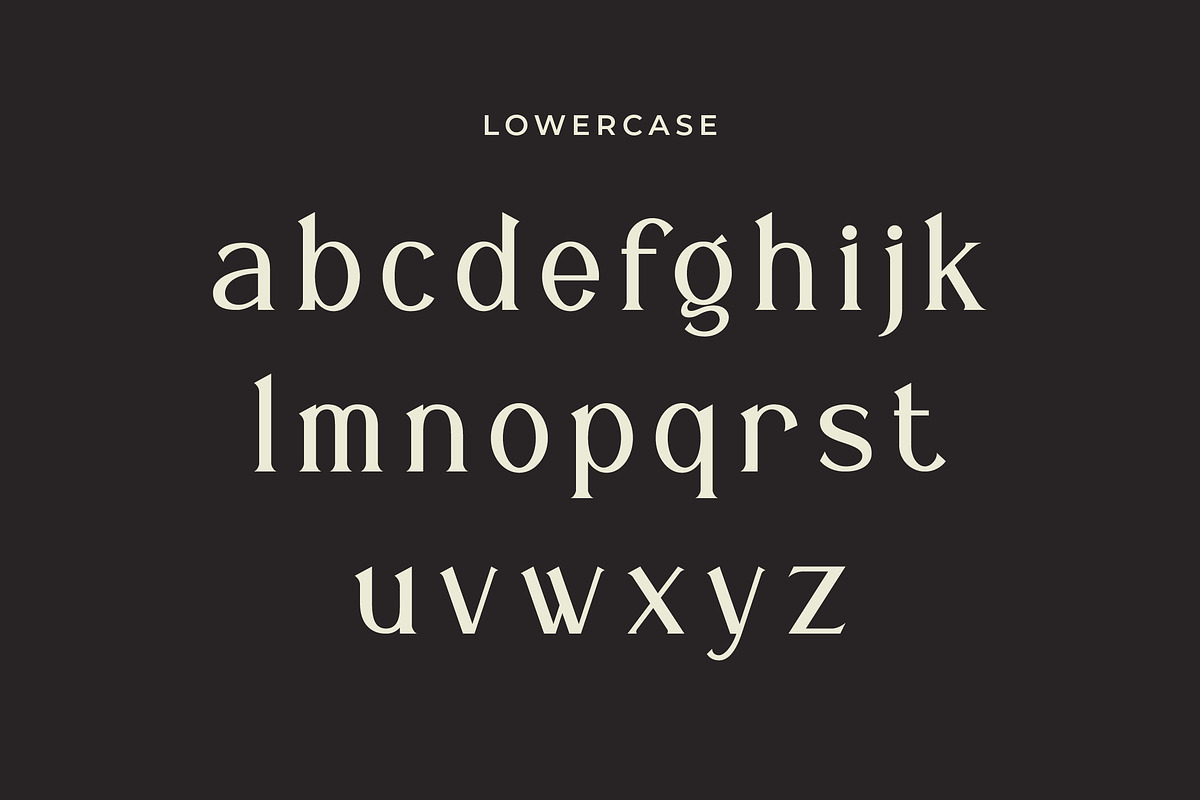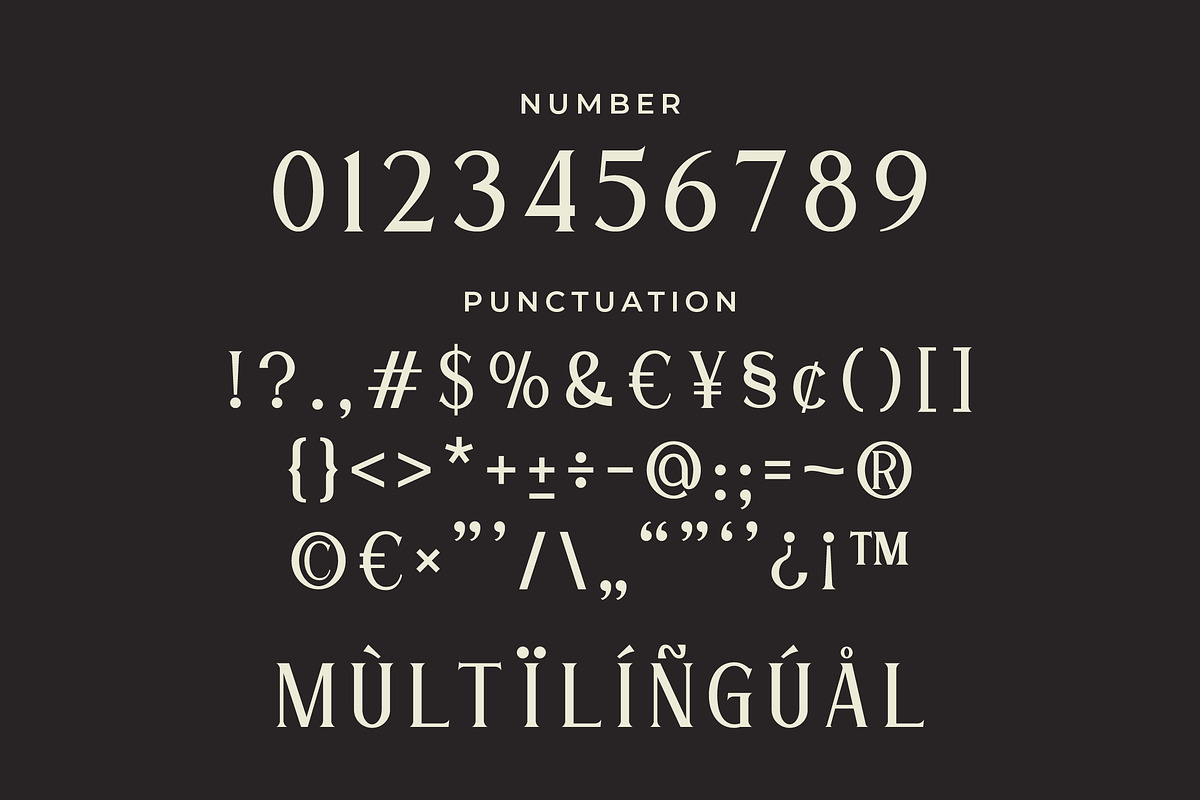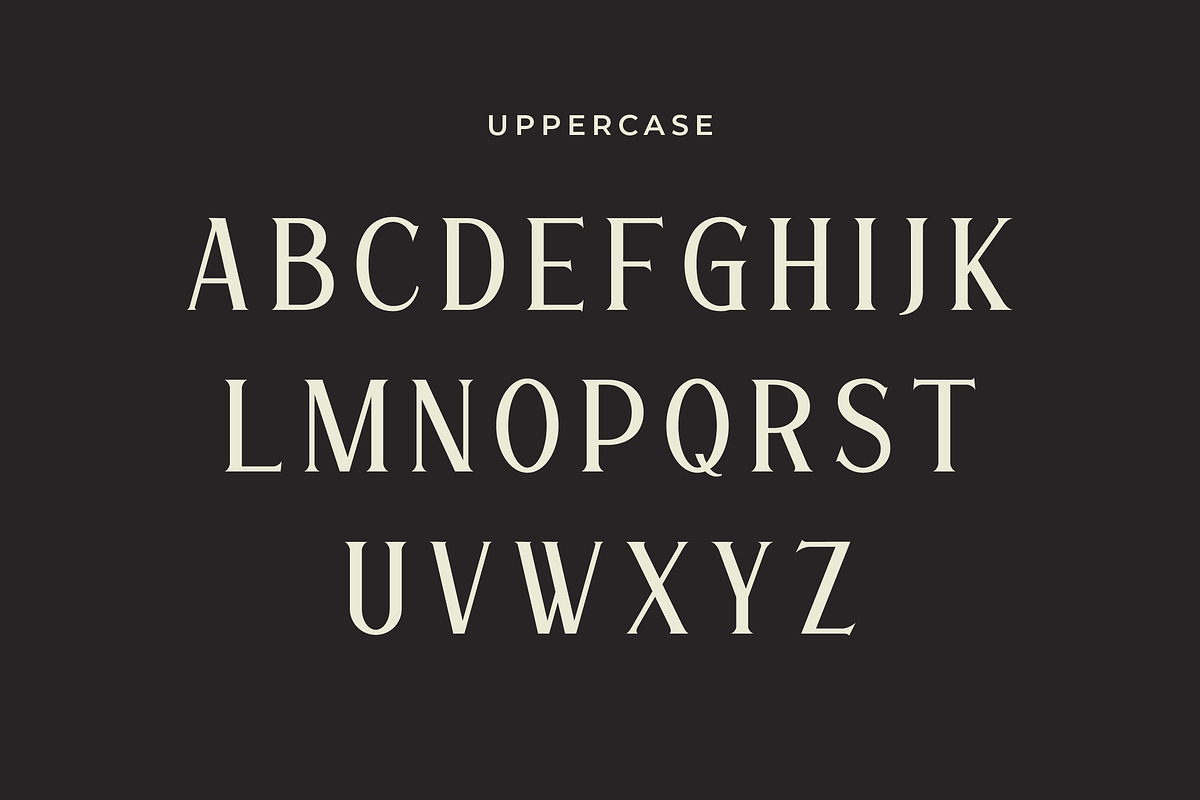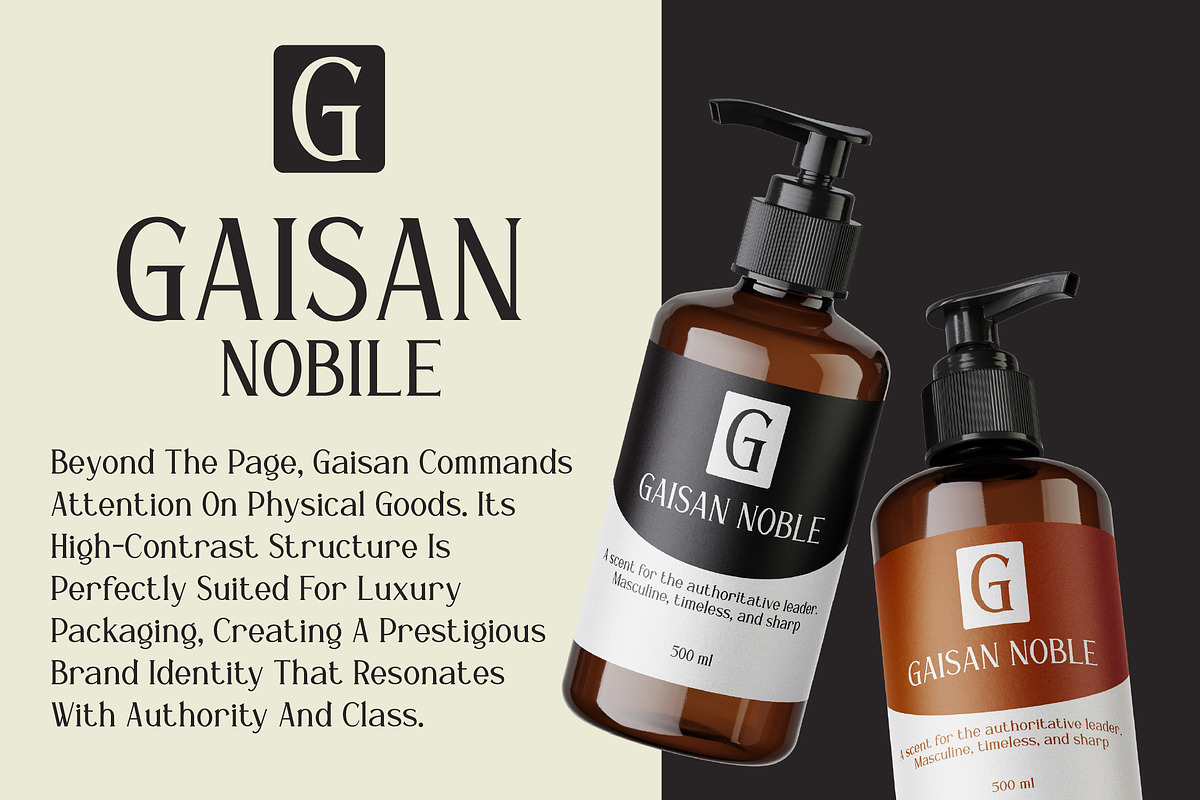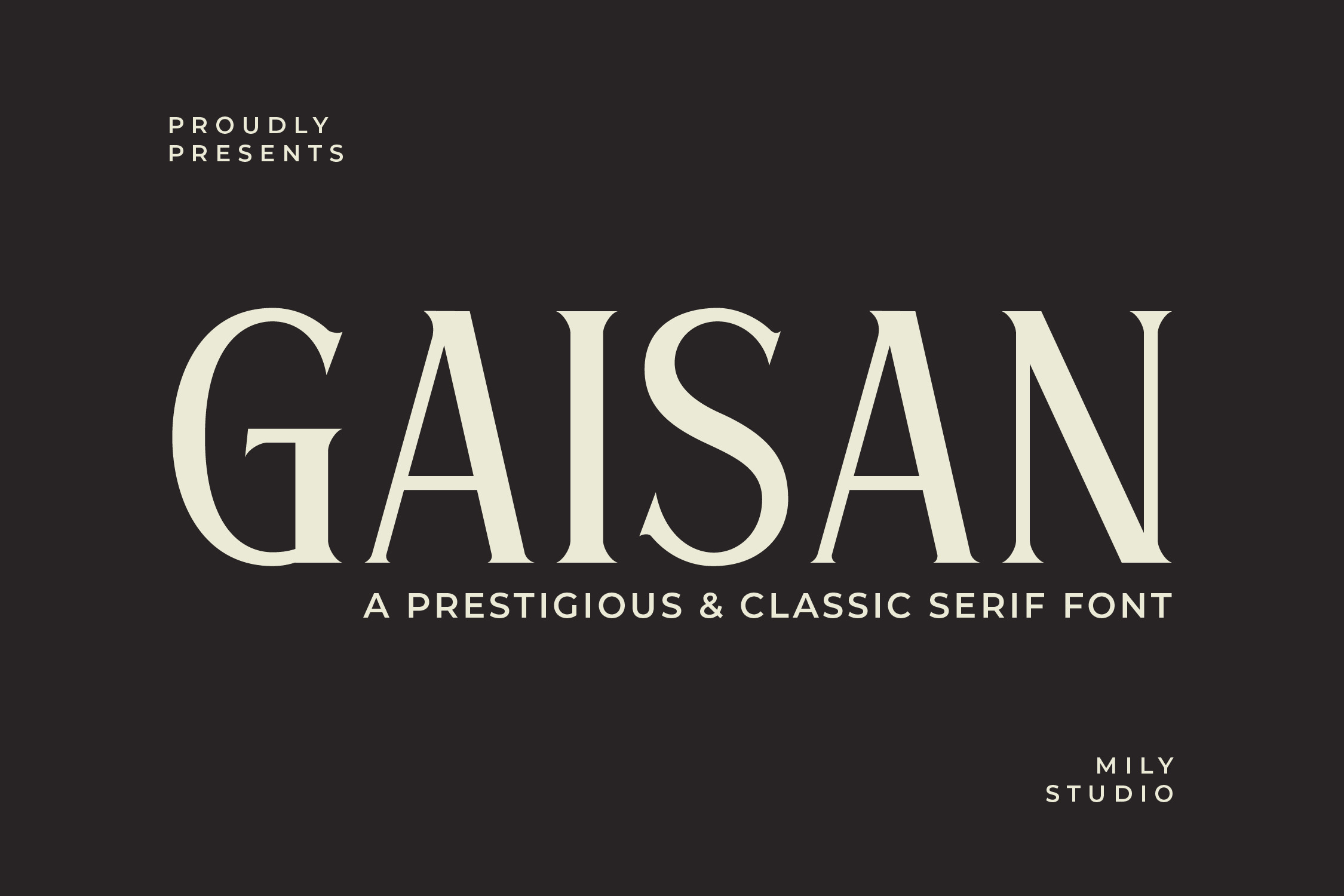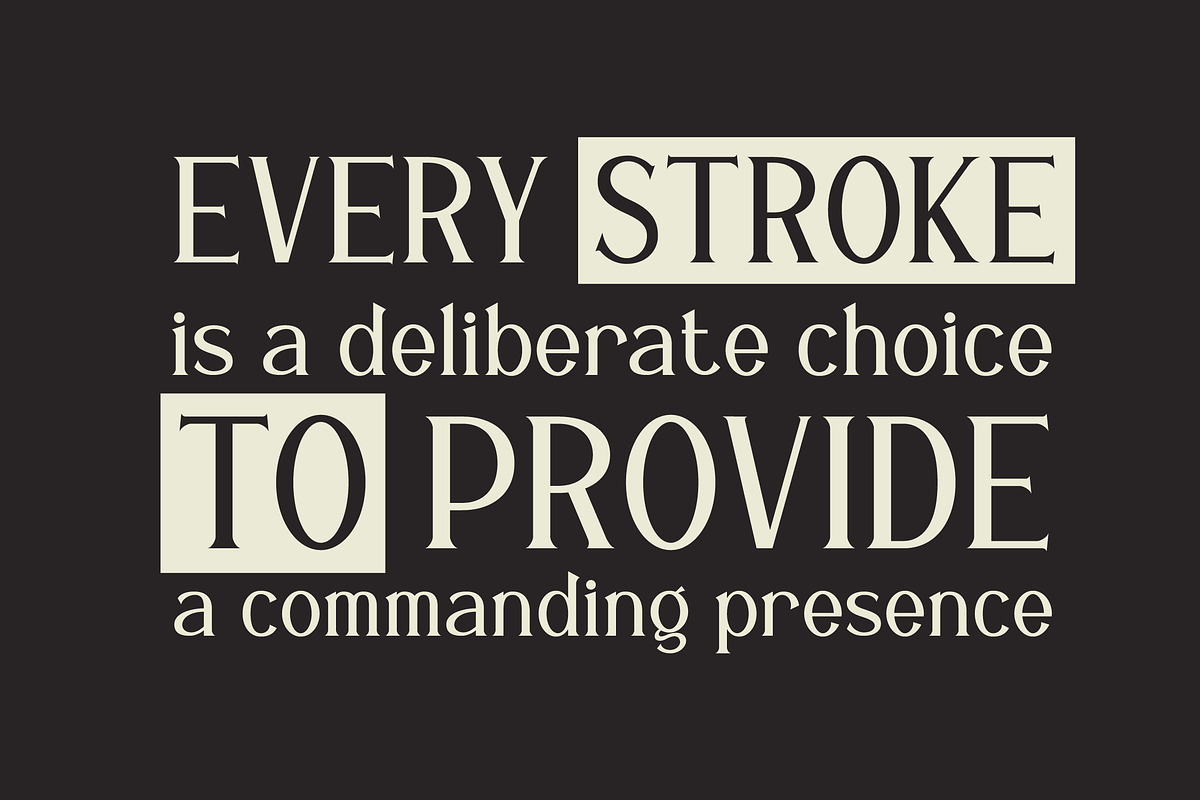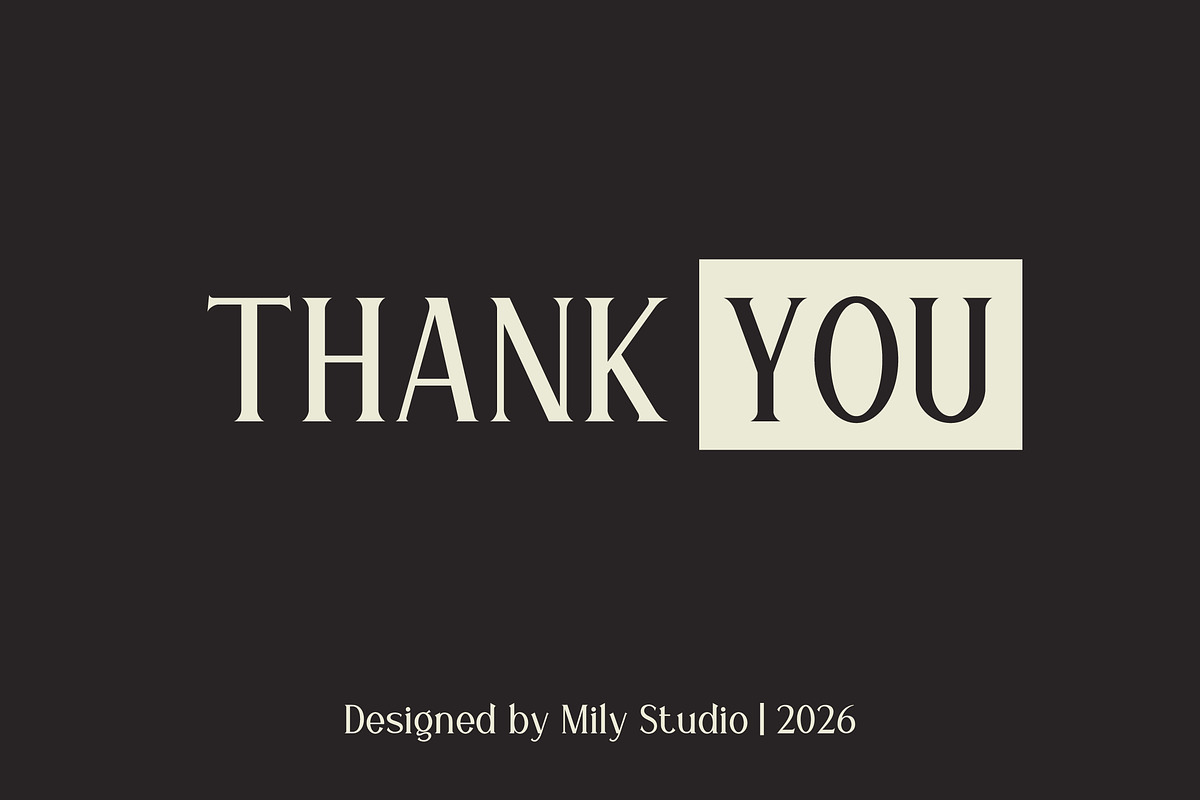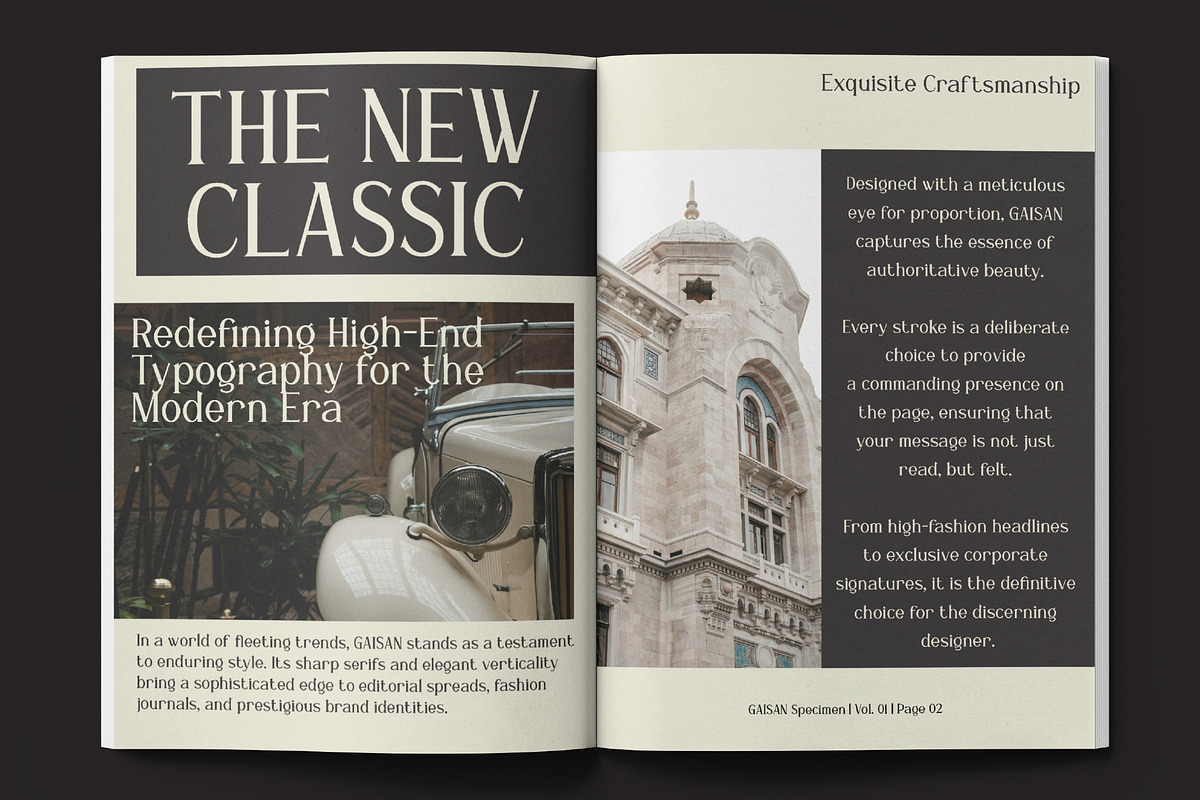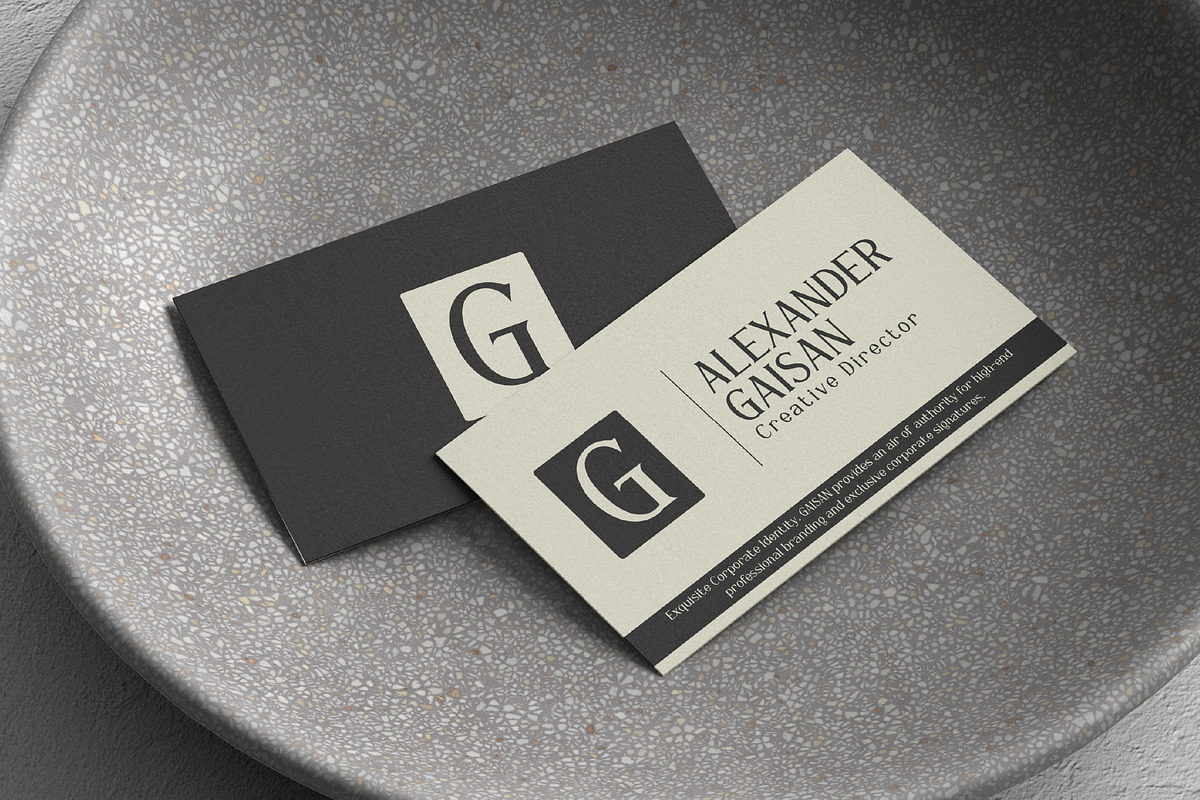
Gaisan - Sharp Modern Serif Font
Gaisan — Sharp Modern Serif for Refined Authority
Gaisan is a high-contrast serif typeface designed to embody a commanding presence and absolute precision. Defined by its razor-sharp serifs and slender verticality, Gaisan transcends traditional elegance, offering a bold, contemporary take on classical typography.
Built on the principle of deliberate choice, every stroke is calculated to provide a sharp, prestigious aesthetic that resonates with power and class. Whether you are designing for high-end fashion, elite corporate branding, or premium editorial layouts, Gaisan brings a polished, authoritative look to your work.
- Full Uppercase & Lowercase Set
- Numbers & Precise Punctuation
- Supports 60+ Latin-based languages
Ideal for : High-End Product Packaging, Elite Corporate Branding, Luxury Fashion Labels, Book Covers, and Premium Magazine Titles.
Step into a world of refined authority with Gaisan.